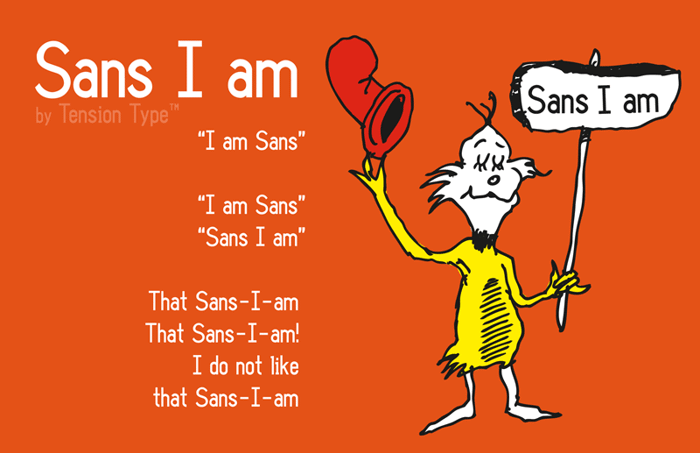
Sans I Am Font
A really ugly sans serif typeface, based on a dot matrix cash register receipt.
So... you're not clear on what a 'serif' is, I assume?